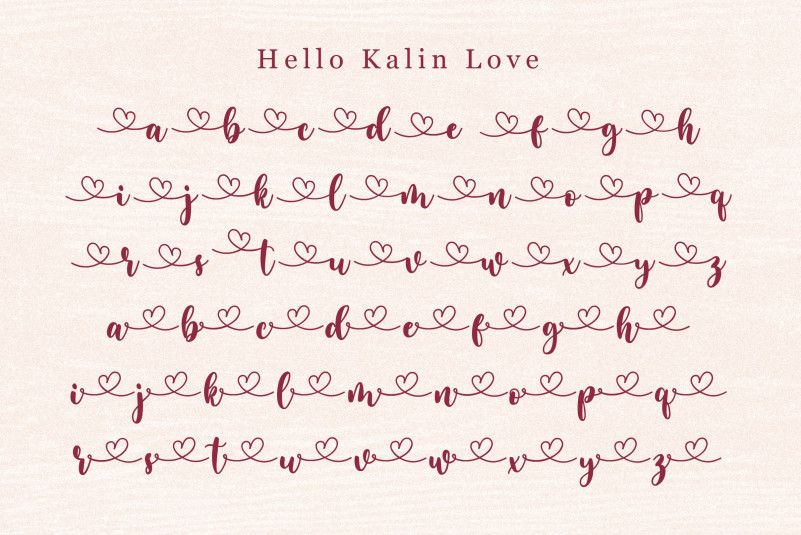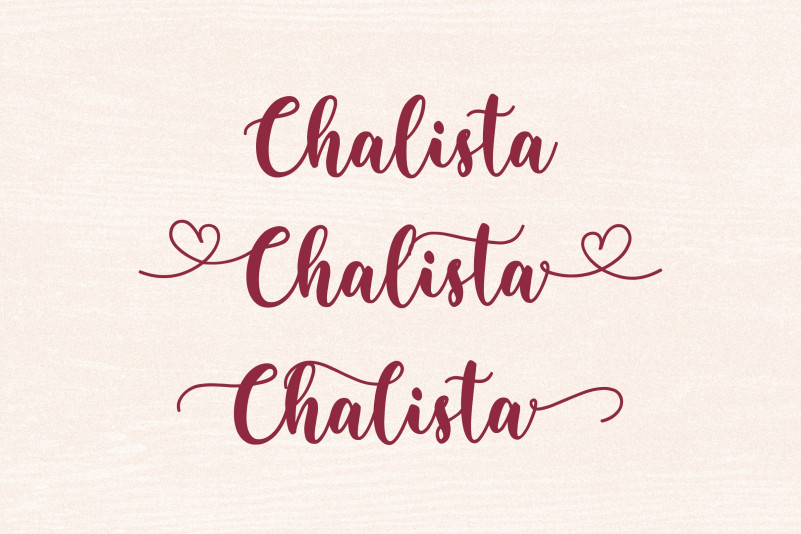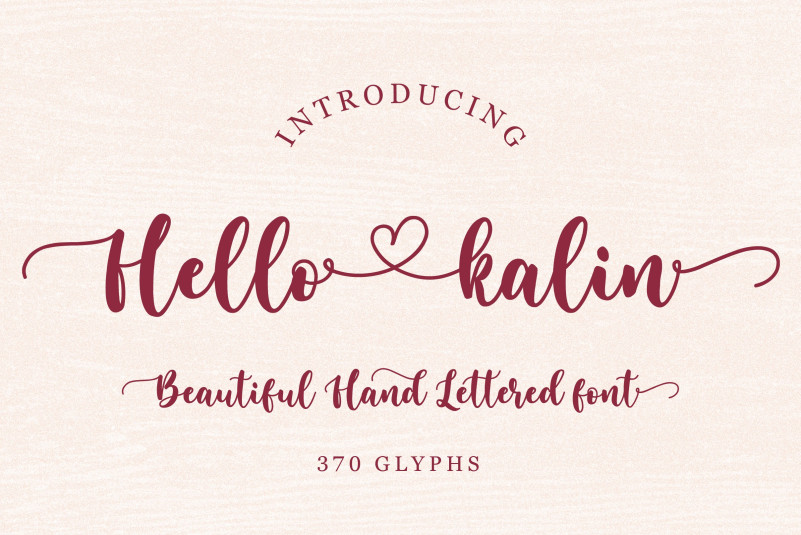
Hello Kalin Font
Hello Kalin Calligraphy Font, this font is the perfect way to add style and flair to your designs! The unique, sophisticated shapes and amazing mix of shapes in this font will automatically add a touch of class and sophistication. ideal for use in greeting cards, posters, product packaging, or just to add a little flair to your designs. Its simplicity will make it easy to read and you can use it anywhere you like. Grab your copy now and start making the most of it today!
– Uppercase, Lowercase, Numeral & Punctuation
– Alternate Letters, Ligature & Swash/Tail